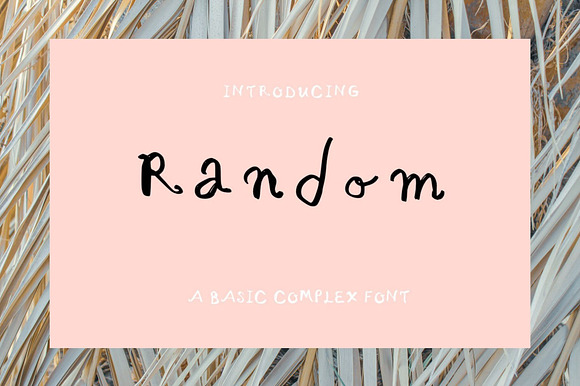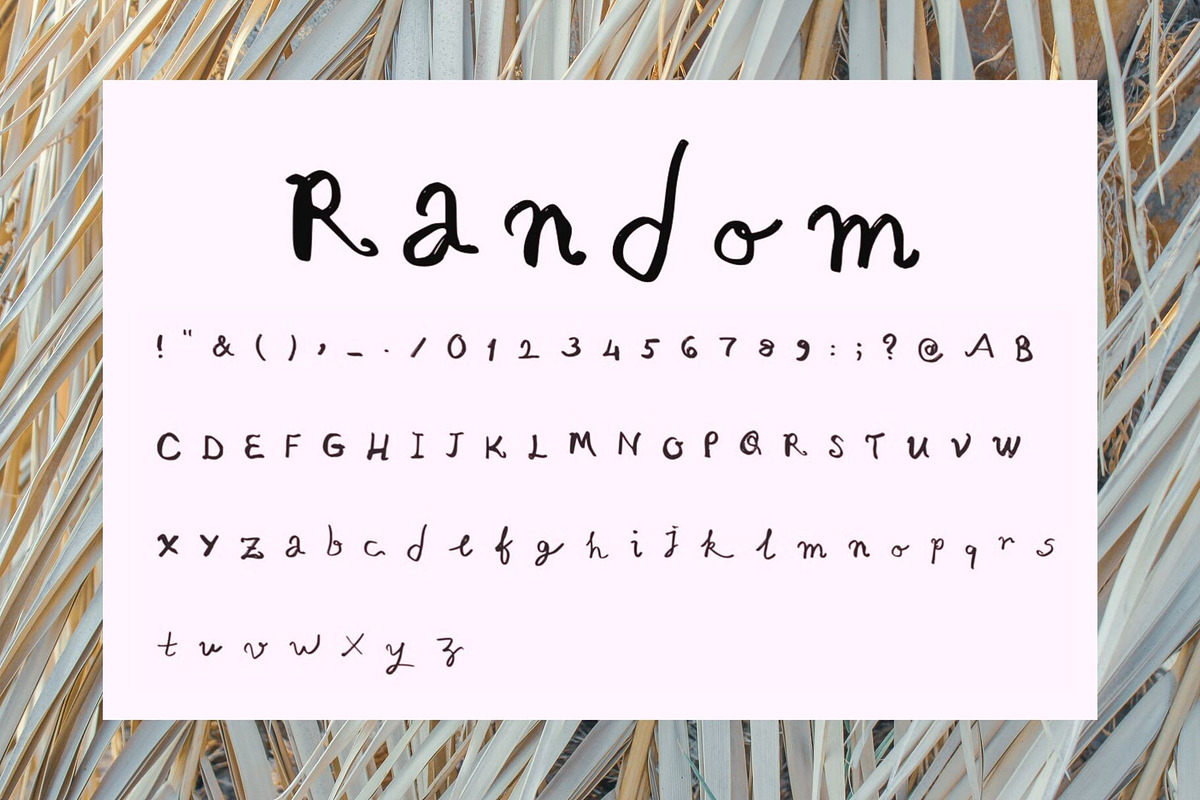
random - a handwritten fun font
random - a handwritten basically complex font
Why random - a handwritten fun font is worth a look
random - a handwritten fun font by dxxb studio fits naturally into Branding, posters, packaging, typography.